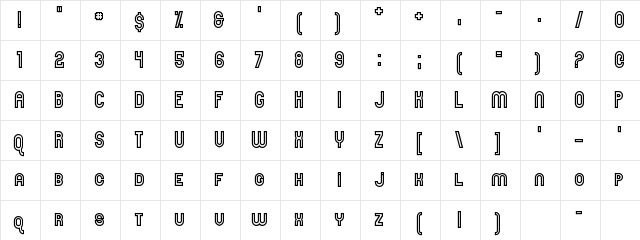
Here & Not Found Regular
Design Context for Here & Not Found Typeface
Here & Not Found offers clean, dependable letterforms without strong stylistic allegiance, making it a practical choice for designers who need flexibility.
Pro Tip: Use Here & Not Found in both headline and body roles to test its range before committing to a single application.